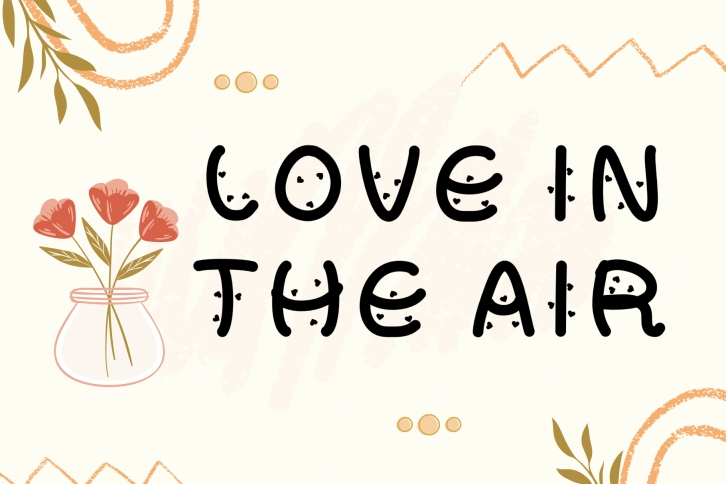
Love in the Air is an enchanting handwritten font. This versatile script font has a wide spectrum of applications ranging from greeting cards to headlines and is guaranteed to add a romantic feel to your next project.